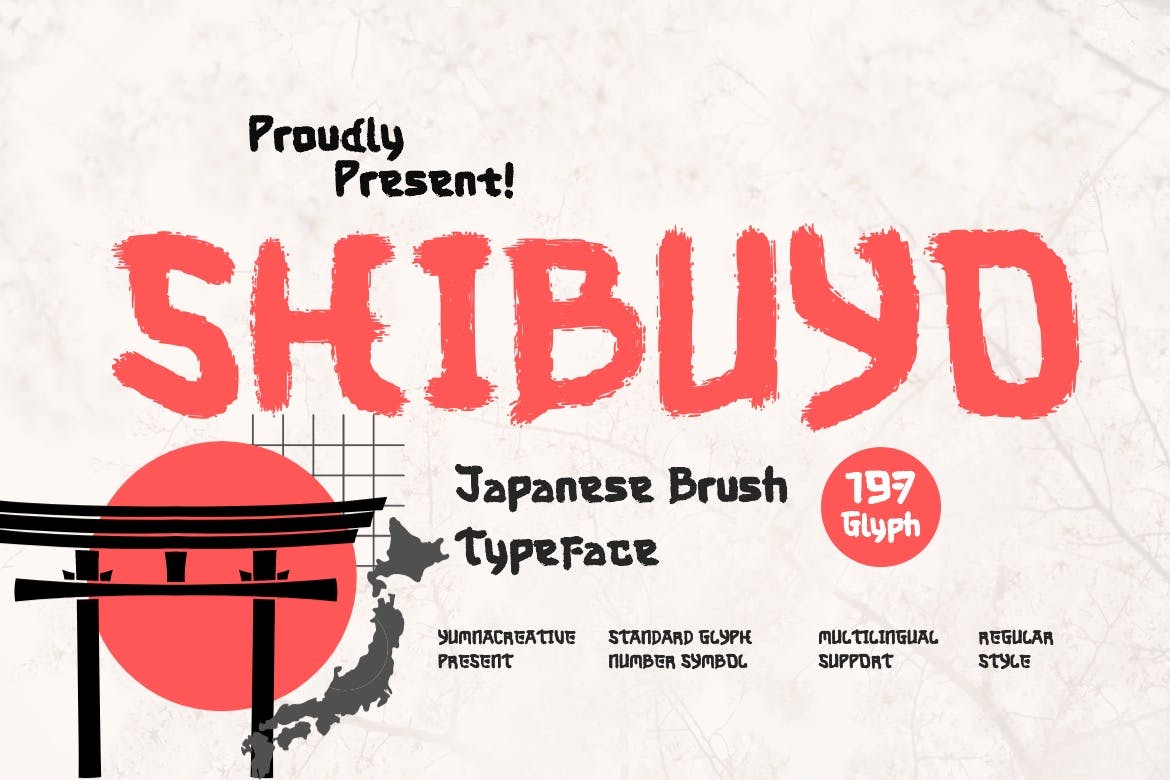
Shibuyo - Japanese Brush Font
The Shibuyo - Japanese Brush Font is perfect for martial arts branding, sushi restaurant menus, zen meditation posters, Japanese cultural events, Asian-inspired packaging, calligraphy art projects, samurai-themed designs, and traditional tea ceremony invitations.
What makes Shibuyo - Japanese Brush Font so exciting is its authentic representation of traditional Japanese brush calligraphy that captures the fluid grace and spiritual depth of centuries-old artistic traditions. This mesmerizing typeface features organic brush strokes with natural ink variations and dynamic flow that mirrors the meditative rhythm of skilled calligraphers. Each character displays the characteristic thick-to-thin stroke variations and organic imperfections that define genuine brush lettering, creating an immediate connection to Japanese culture and artistic heritage. The font's expressive nature brings emotional depth and cultural authenticity to designs, making it perfect for projects that need to convey wisdom, tranquility, and traditional craftsmanship.
The Shibuyo - Japanese Brush Font family includes comprehensive variations that honor traditional calligraphy while meeting modern design requirements. The collection typically features multiple brush styles from delicate to bold strokes, each capturing different calligraphic moods and energy levels. Many versions include alternative characters with varied brush textures, decorative elements inspired by Japanese art, and extended character sets supporting both Latin and Japanese writing systems for authentic cross-cultural design applications.
The font's versatility extends across both digital and print applications, from modern website headers to traditional packaging design. Its organic brush texture maintains visual impact at various sizes while preserving the spiritual essence that makes Japanese calligraphy so captivating and meaningful to global audiences.
Creative professionals worldwide trust this authentic brush font for projects requiring genuine Japanese cultural elements and artistic sophistication. Whether developing brand identities for Asian restaurants, creating promotional materials for cultural events, or designing meditation and wellness content, this font delivers the perfect combination of traditional authenticity and contemporary functionality.